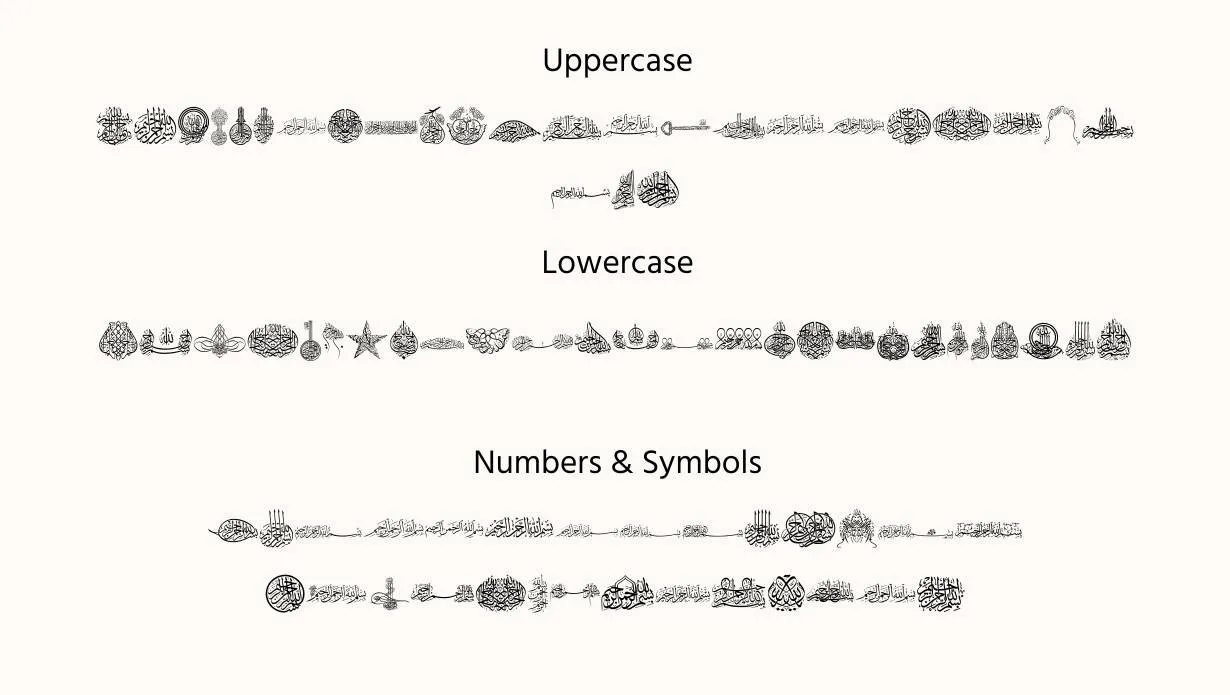
The Arabic Bismillah font is like a piece of art for your words. With its graceful and intricate design, it adds a touch of elegance to your text. This font is perfect for projects that celebrate Arabic culture and beauty.
Whether you’re designing a special invitation or creating a logo with a cultural touch, the Arabic Bismillah font brings a sense of sophistication to your words, making them as beautiful as a delicate painting.